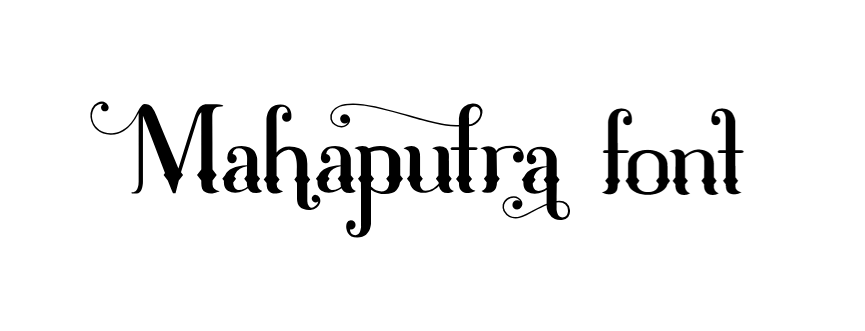
Mahaputra
Mahaputra is a fancy font created by Putra Novembria Candra Kusuma and released through Putracetol Studio, Karanganyar (2019). It's a decorative display font with plenty of personality, made to grab attention. It's a free download, and you can try it with your own text in the preview above first.
- Extra characters: 155 copy-and-paste alternates (Private Use Area)
What You Can Type With Mahaputra
With complete upper and lowercase letters and all ten digits, Mahaputra is ready for real wording, not just a single headline. Common punctuation such as &, !, ? and @ is included as well. It also has the accented letters you need for Spanish, French, German, Portuguese and Italian.
Where Mahaputra Works Best
Designers usually reach for fonts like Mahaputra when they're making posters, logos and eye-catching headlines. Its lowercase letters are small compared to the capitals, so set it a size or two bigger than usual. Use it for one standout word or headline and let simpler fonts handle the rest.
Yes. Mahaputra includes the accented letters needed for Spanish, French, German, Portuguese and Italian, so it works for more than just English.